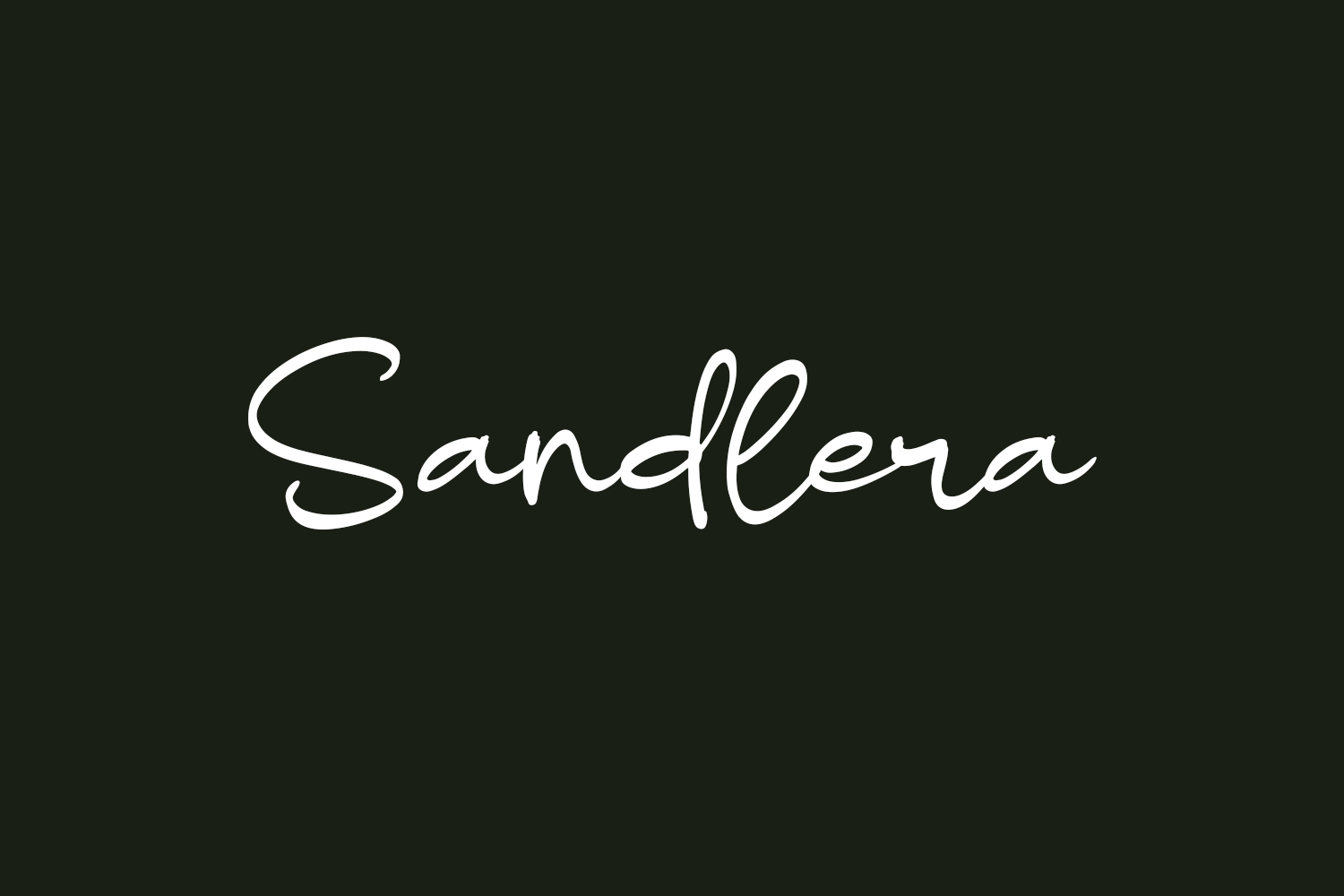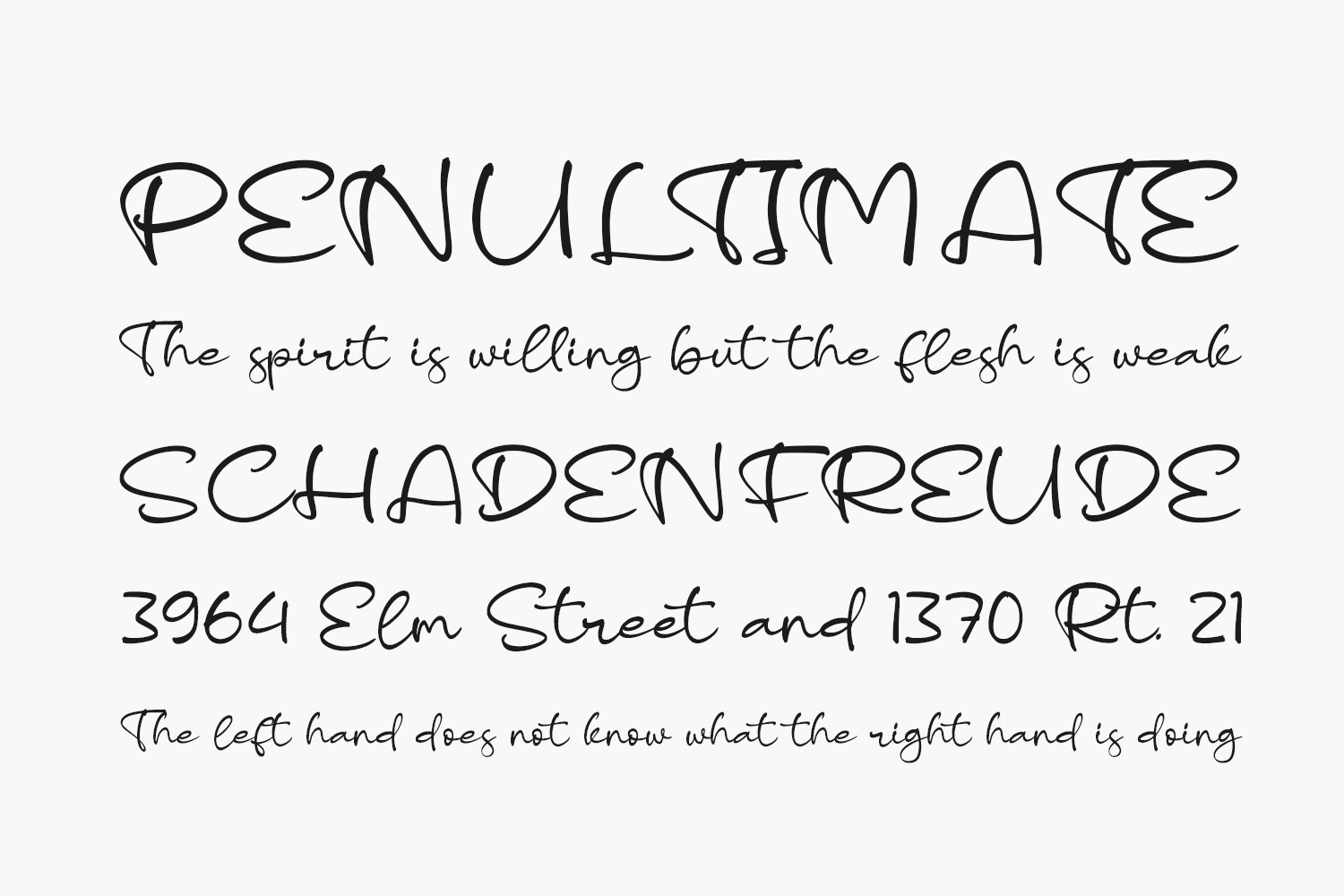
Sandlera Free Font – Elegant Script for Invitations & Feminine Branding
Sandlera is a stylish and flowing handwritten script designed by Letterena Studios to bring elegance and artistic charm to your creative projects. With its smooth strokes, natural rhythm, and classic calligraphic style, this free decorative typeface works perfectly for crafting romantic logos, formal stationery sets, greeting cards, social media quotes, and more. Available in OTF format — ideal for designers seeking a graceful script font that blends sophistication with modern clarity.
Why Choose Sandlera?
- Elegant Calligraphic Style: Mimics traditional penmanship with soft curves and expressive connections for a warm, personal touch.
- Ideal for Invitations: Perfect for wedding cards, RSVPs, or event signage needing a refined, feminine tone.
Where to Use Sandlera?
Sandlera shines across a variety of creative applications:
- Logos & Branding: Adds warmth and charm to brand identities for lifestyle blogs, bridal studios, or boutique shops needing a romantic appeal.
- Wedding Invitations: Brings timeless beauty to formal stationery sets, envelopes, and bridal name typography with a hand-drawn feel.
- Social Media Graphics: Creates bold text overlays for Instagram Stories, Pinterest pins, TikTok videos, and YouTube banners with a human touch.
- Packaging Design: Enhances product tags on candles, perfumes, or handmade goods requiring a premium appearance.
- Editorial Headers: Stands out in blog headers, magazine covers, and digital banners with a vintage-inspired handwriting look.
Design Tips with Sandlera
- Glyphs: 242 glyphs including uppercase (A-Z), lowercase (a-z), numerals, punctuation, and stylistic alternates (PUA encoded).
- Language Support: English, Spanish, French, German.